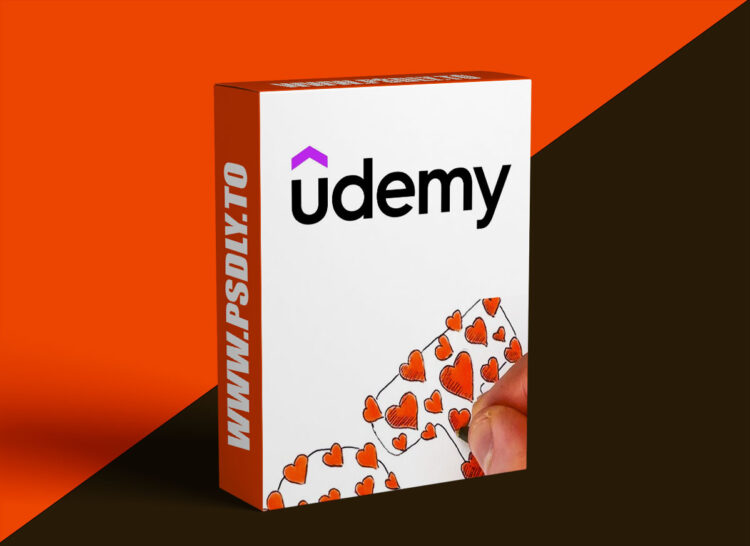
Udemy – Learn to Draw Stylish Letters and Fonts for Beginners
Learn to Draw Stylish Letters and Fonts for Beginners
Barry Delaney
Time to unlock the bold, stylish lettering skills you’ve always wanted.
Learn to Draw Stylish Letters and Fonts for Beginners shows you how to create eye-catching lettering in tattoo and love-heart bubble writing style. Whether you’re drawing for your own projects or crafting designs for others, this course will sharpen your ability to turn letters into expressive art.
This is your track to mastering font drawing like you always imagined — no experience needed.
You’ll go from having little to no drawing knowledge to creating beautifully stylized letters and understanding key design principles. Follow along with step-by-step techniques for building your personal font style, creating decorative alphabet sets, designing layouts, and adding shading / 3D shadowing.
• Clear lessons on line control, geometric balance, bubble effects, layout, and shading
What you’ll learn:
• Draw stylish love-heart bubble letters and tattoo-inspired fonts
• Design decorative alphabet sets using layout and embellishment techniques
• Add expressive shading and contrast to boost visual impact
• Create bold, clean fonts with improved line fundamentals
• Develop a personal lettering style from scratch